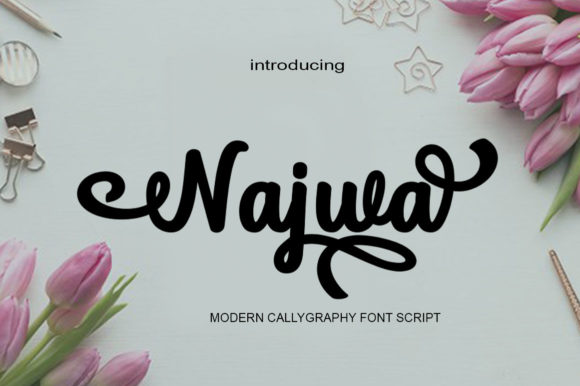
Introducing Najwa Font - An Enchanting Journey Through the Realm of Typography
Embark on a transformative typographic voyage with Najwa Font, an awe-inspiring script typeface that captivates the senses with its elegant curves and expressive strokes. Inspired by the timeless beauty of classic calligraphy, Najwa dances across your designs with a vibrant personality, adding a touch of magic to every word it graces.
Crafted with meticulous care by the esteemed Saidi Studio, Najwa Font is a visual symphony of organic lines and dynamic flow. Its enchanting characters evoke a sense of nostalgia and romance, reminiscent of handwritten letters penned with passion and artistry. With its distinctive style, Najwa Font empowers you to weave tales of elegance and intrigue, leaving an unforgettable impression on your audience.
Unleash the full potential of your creative vision with Najwa Font's versatile nature. Whether you're designing captivating logos, crafting heartfelt invitations, or creating eye-catching social media graphics, Najwa Font effortlessly adapts to your every need. Its fluid strokes and graceful curves bring a touch of sophistication to any project, transforming ordinary words into captivating works of art.
Immerse yourself in Najwa Font's captivating world and let your imagination run wild. Whether you're a seasoned design professional or just starting your creative journey, Najwa Font will elevate your projects to new heights of visual excellence. Its intuitive design makes it easy to use, allowing you to effortlessly create stunning designs that speak volumes.